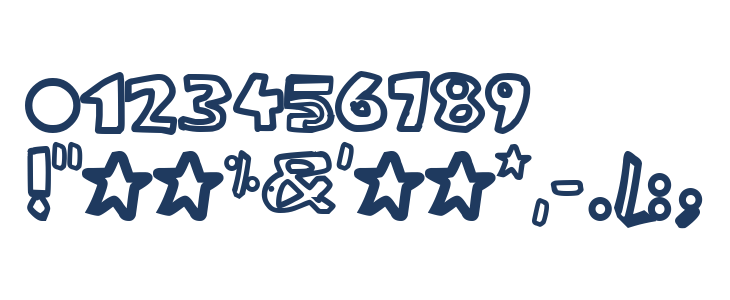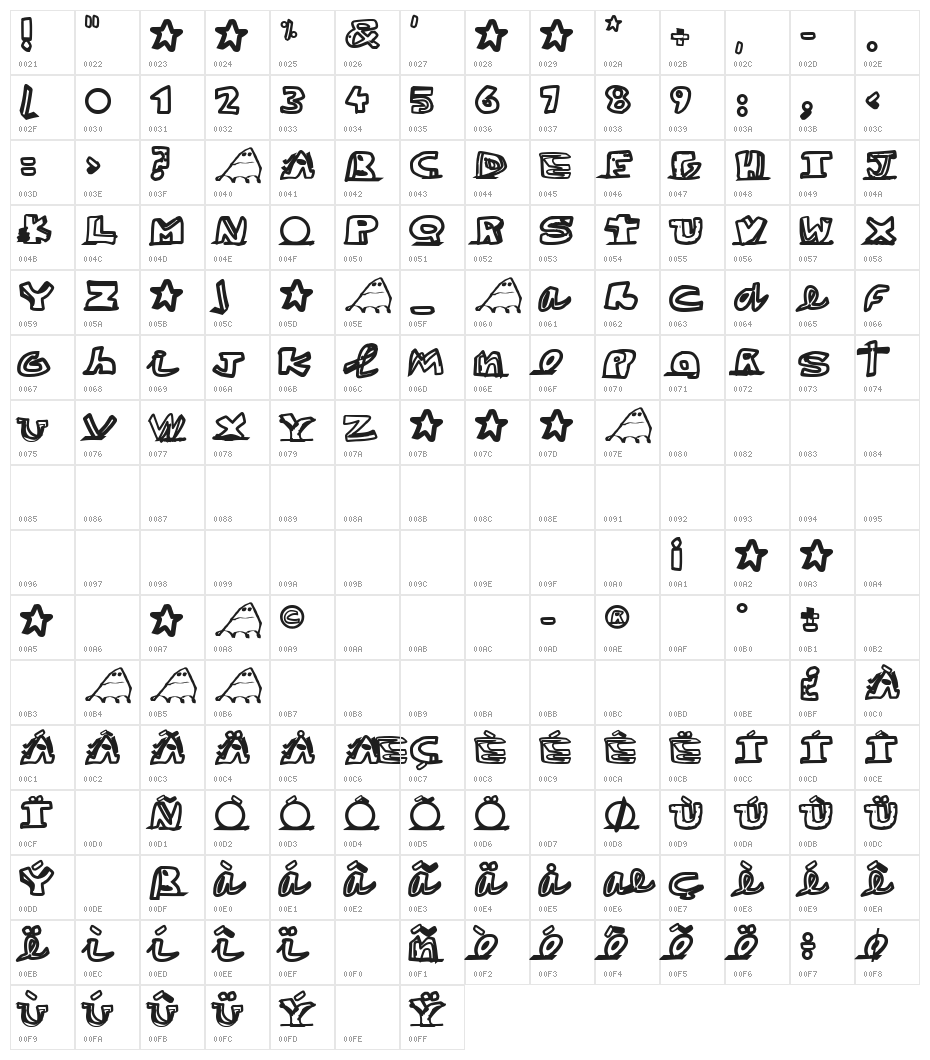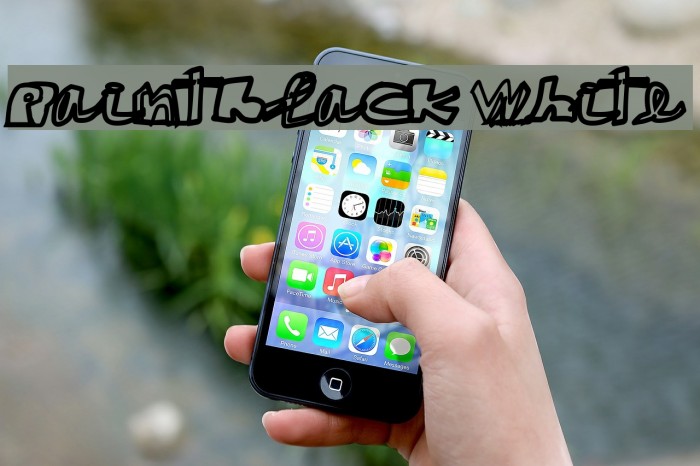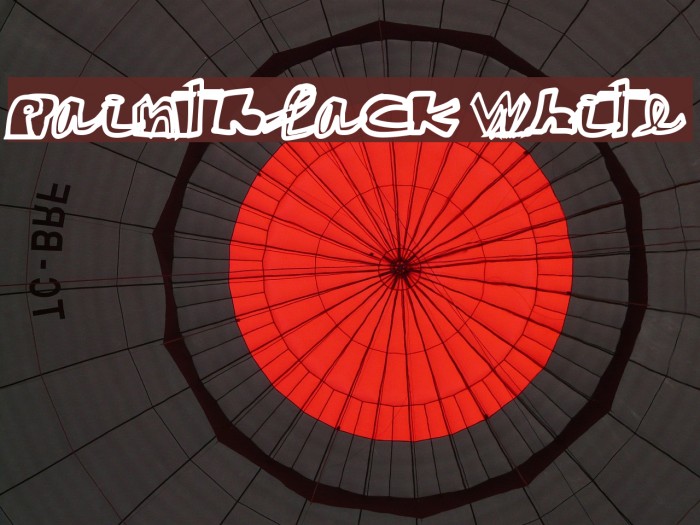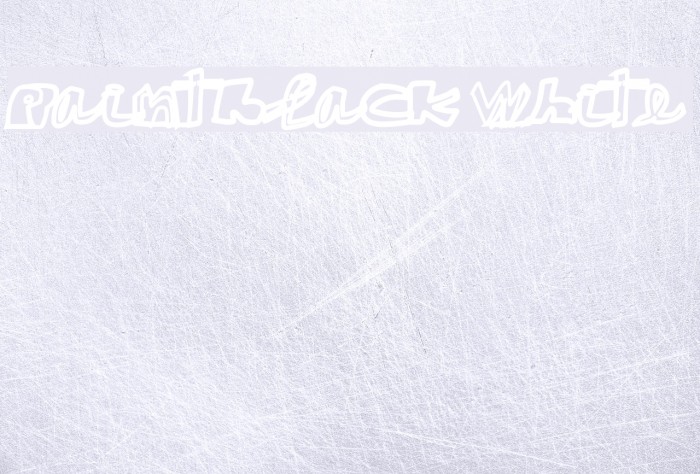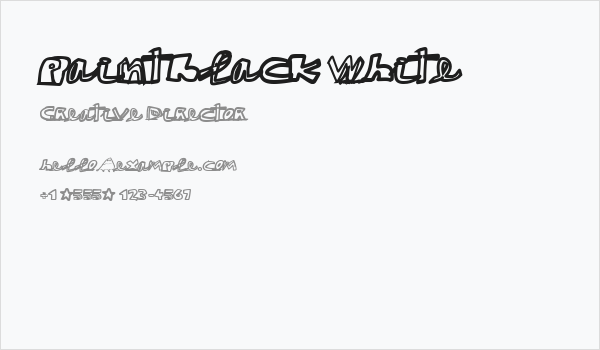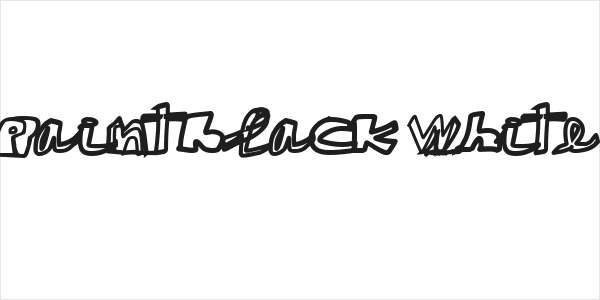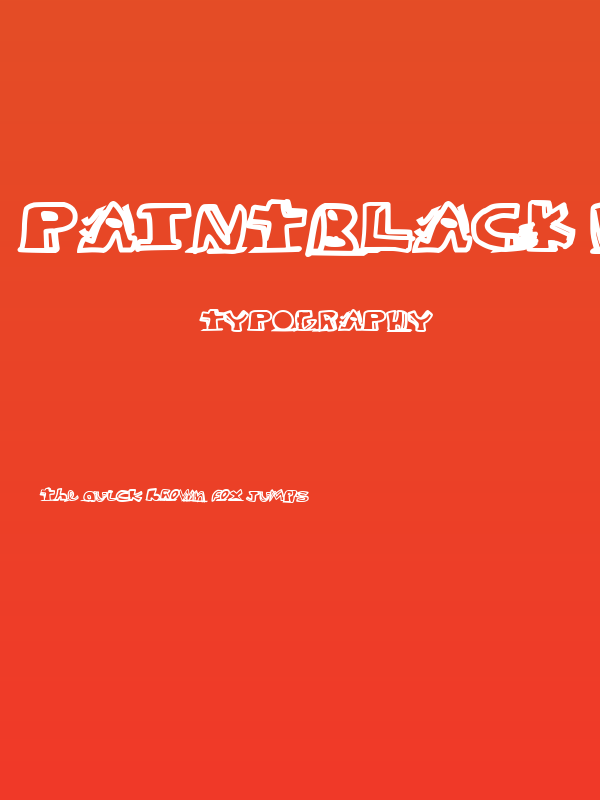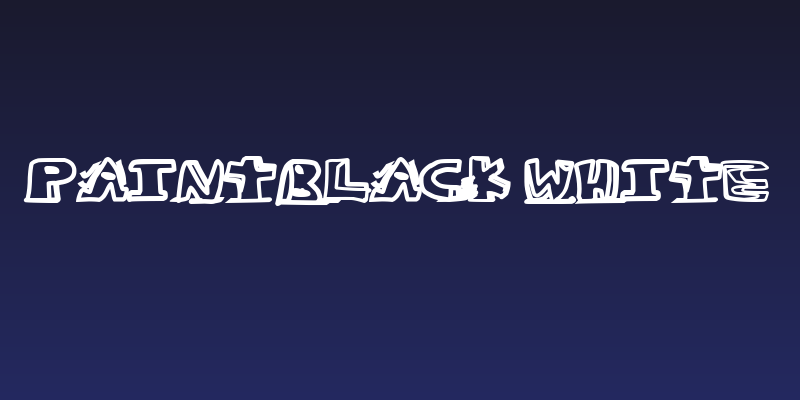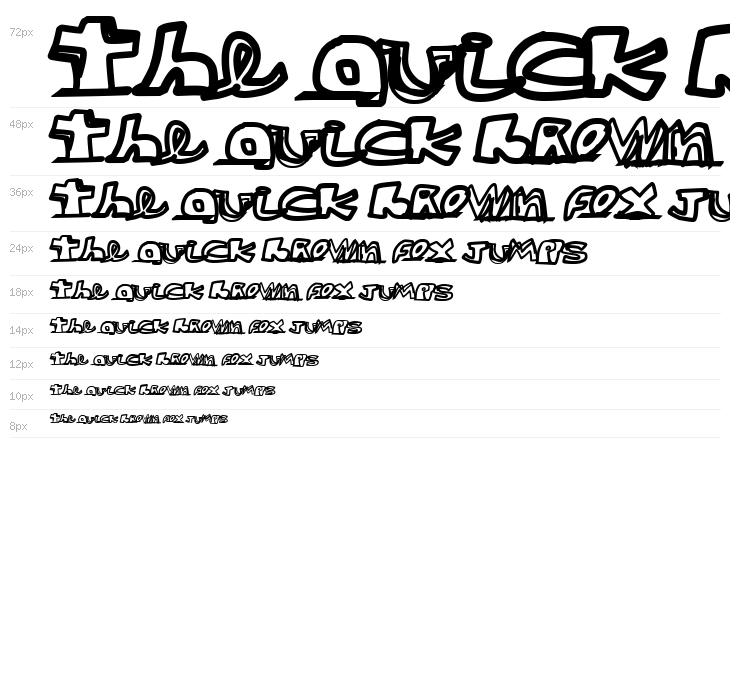
paintblack white Font
paintblack white Description
This font features a bold, graffiti-inspired style with a playful and artistic flair. The characters are outlined with a thick black stroke, giving them a dynamic and energetic appearance. The uppercase and lowercase letters have a hand-drawn quality, with irregular shapes and varying line thicknesses that add to the font's unique character. The numbers and special characters maintain this artistic theme, making them stand out with their bold outlines and creative forms. This font is perfect for projects that require a fun and eye-catching design.
| Overall Style | Modern, Artistic |
| Proposed Projects | Ideal for street art designs, posters, album covers, and creative branding projects. |